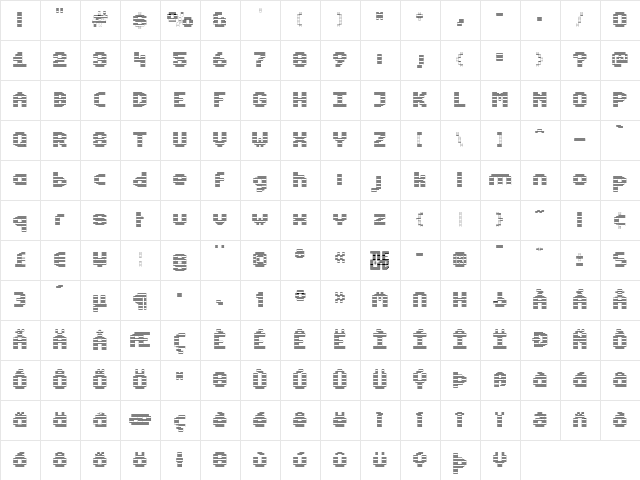
Complete Estrogen-Pill Roman glyph index. Displaying only characters natively supported by Estrogen-Pill Roman font.
Estrogen-Pill is a composed and adaptable typeface that performs quietly and consistently across a wide range of design contexts.